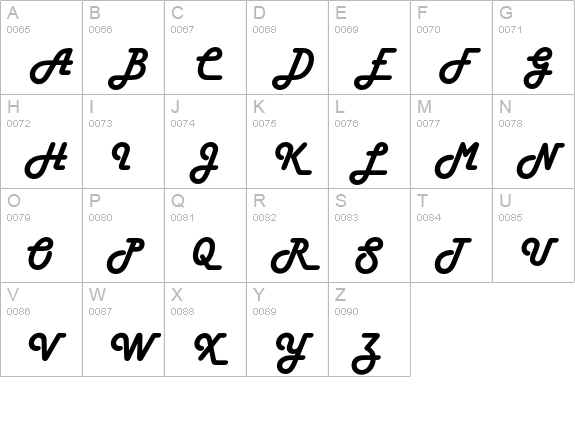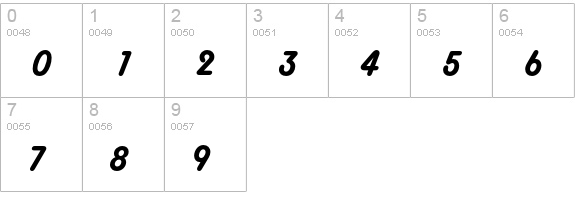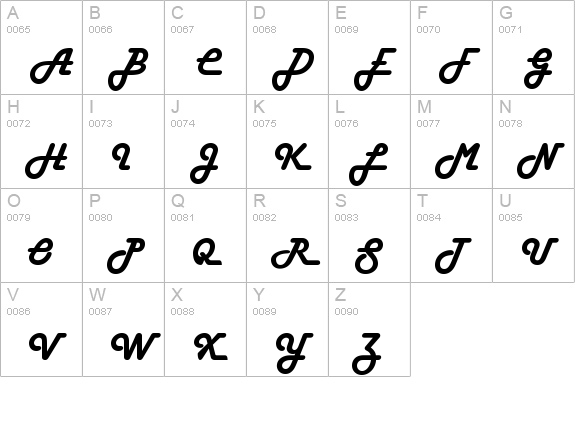
HarlowICG-Solid Font Details
HarlowICG-Solid font is a captivating and versatile typeface that exudes elegance and sophistication. Its bold and solid strokes command attention, making it perfect for creating eye-catching headlines, titles, and logos. This font is characterized by its clean and modern design, making it suitable for a wide range of projects, from print materials to digital media. What sets HarlowICG-Solid font apart is that it is freely available to download at FontsMarket.com. This means that you can easily access and use this remarkable font without any cost or restrictions. Whether you are a professional designer or a creative enthusiast, having access to high-quality fonts like HarlowICG-Solid font can greatly enhance your design projects. With its timeless appeal and legibility, HarlowICG-Solid font is an excellent choice for various applications. Its bold and solid appearance ensures that your message will be conveyed with impact and clarity. Whether you are designing a poster, creating a website, or crafting a branding identity, HarlowICG-Solid font can elevate your design to the next level. The versatility of HarlowICG-Solid font allows it to be used across different design styles and themes. It can effortlessly adapt to both formal and informal contexts, making it suitable for a wide range of projects. Its clean lines and well-defined shapes ensure readability even at smaller sizes, making it an excellent choice for body text as well. In conclusion, HarlowICG-Solid font is a stunning typeface that combines elegance and versatility. Its bold and solid design makes it perfect for creating impactful designs, while its availability as a free download at FontsMarket.com makes it easily accessible to designers and enthusiasts alike. Whether you are working on a print or digital project, HarlowICG-Solid font is sure to make a lasting impression.